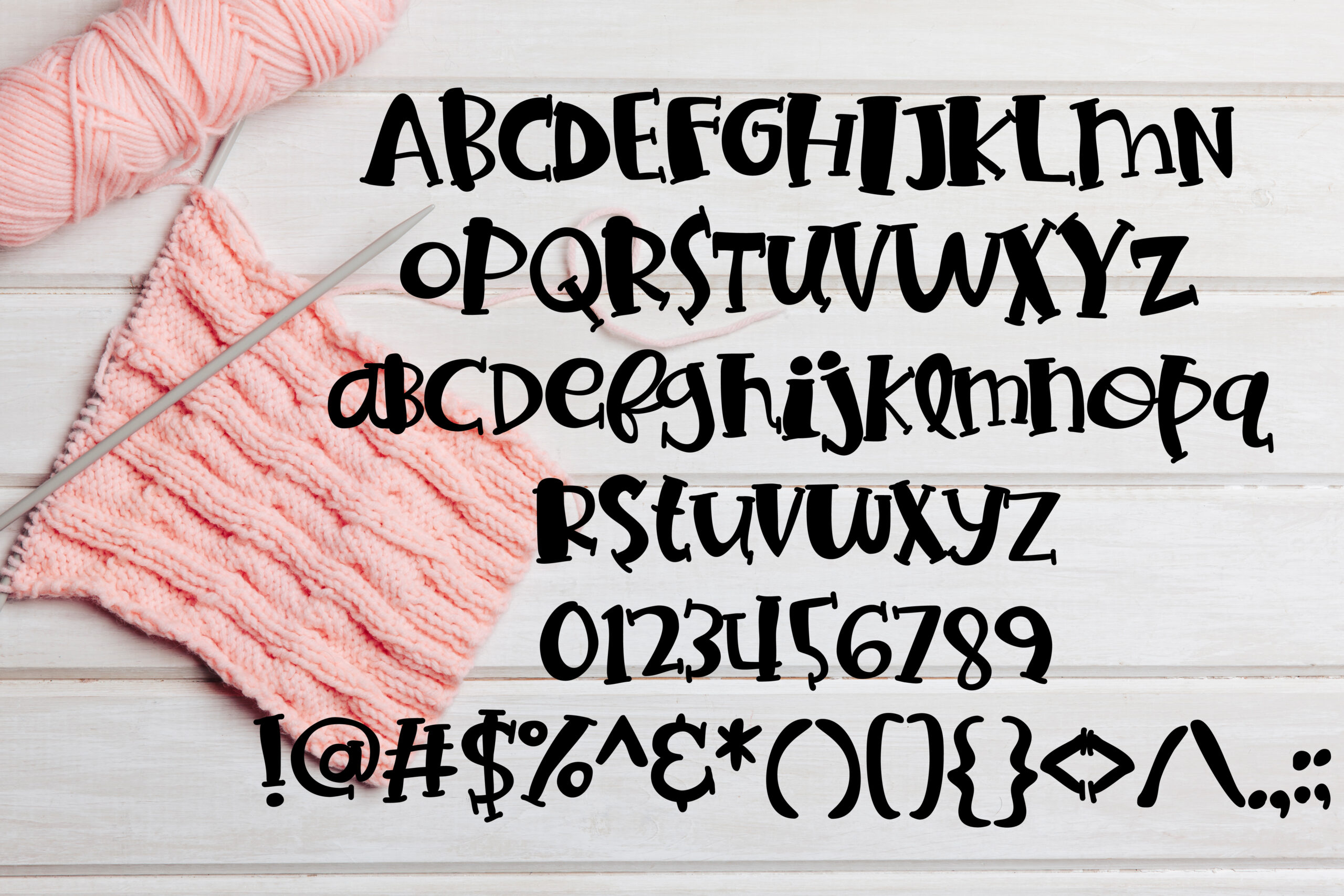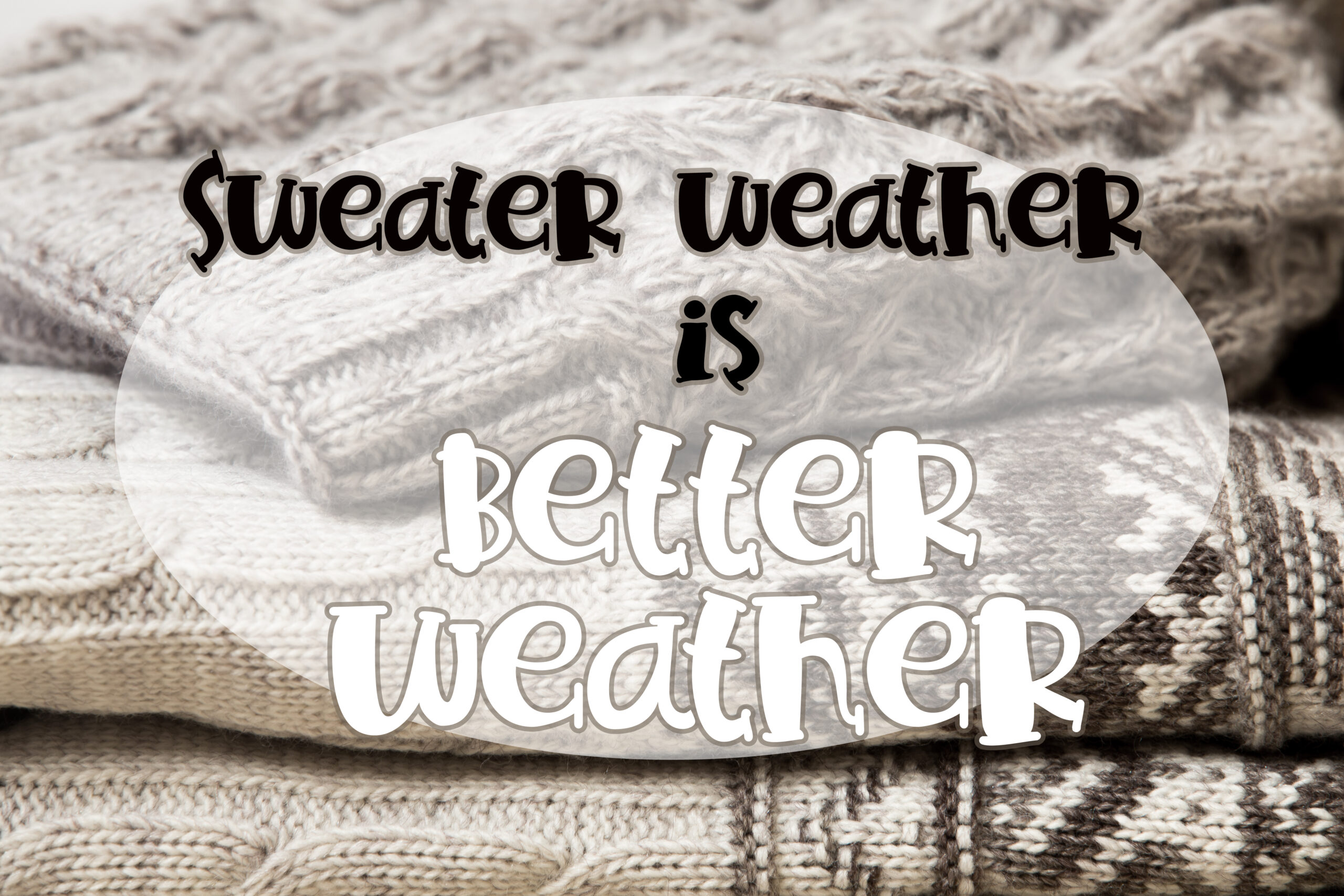
Sweater Weather Serif Font
About Sweater Weather Serif Font
This whimsical font is a combination print and script, serif and fun. It’s hand-crafted touch will add creativity to any project.